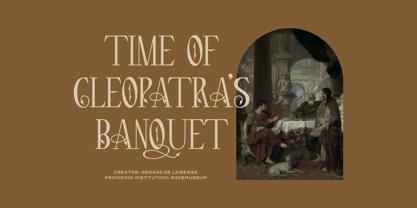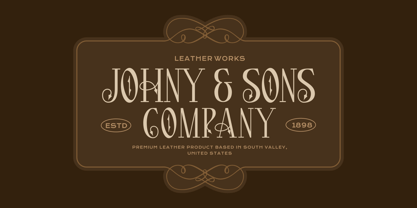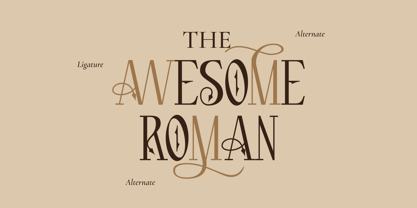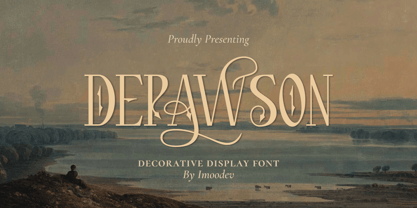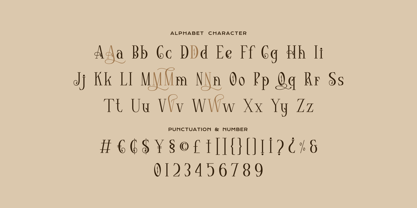
Depawson
by Imoodev
The Depawson Font Family was designed by Aulia Savira Putri and published by Imoodev. Depawson contains 1 styles. More about this family
Depawson is a decorative display font embodies a refined synthesis of classical elegance and modern precision. This font is serving major "classical glam but make it fashion" energy. It's a decorative Roman-inspired typeface, it's got a handcrafted vintage aesthetic with intricate, playful detailing, especially those boujee little curls and loops—total eye-candy.
It includes fancy ligatures and alternates, giving off that high-key luxurious vibe, it’s ideal for boutique brands, weddings, elegant gatherings, vintage-chic, classy cafés, or artisanal goods, headline, and editorial. Depawson is for anyone who wants their project to feel premium, artsy, and aesthetically elevated, but not outdated.
Features:
• Uppercase and Lowercase
• Punctuation, Alternates and, Ligatures
• Number and Symbol
• Multilingual Support
• Opentype Features
Designers: Aulia Savira Putri
Foundry: Imoodev